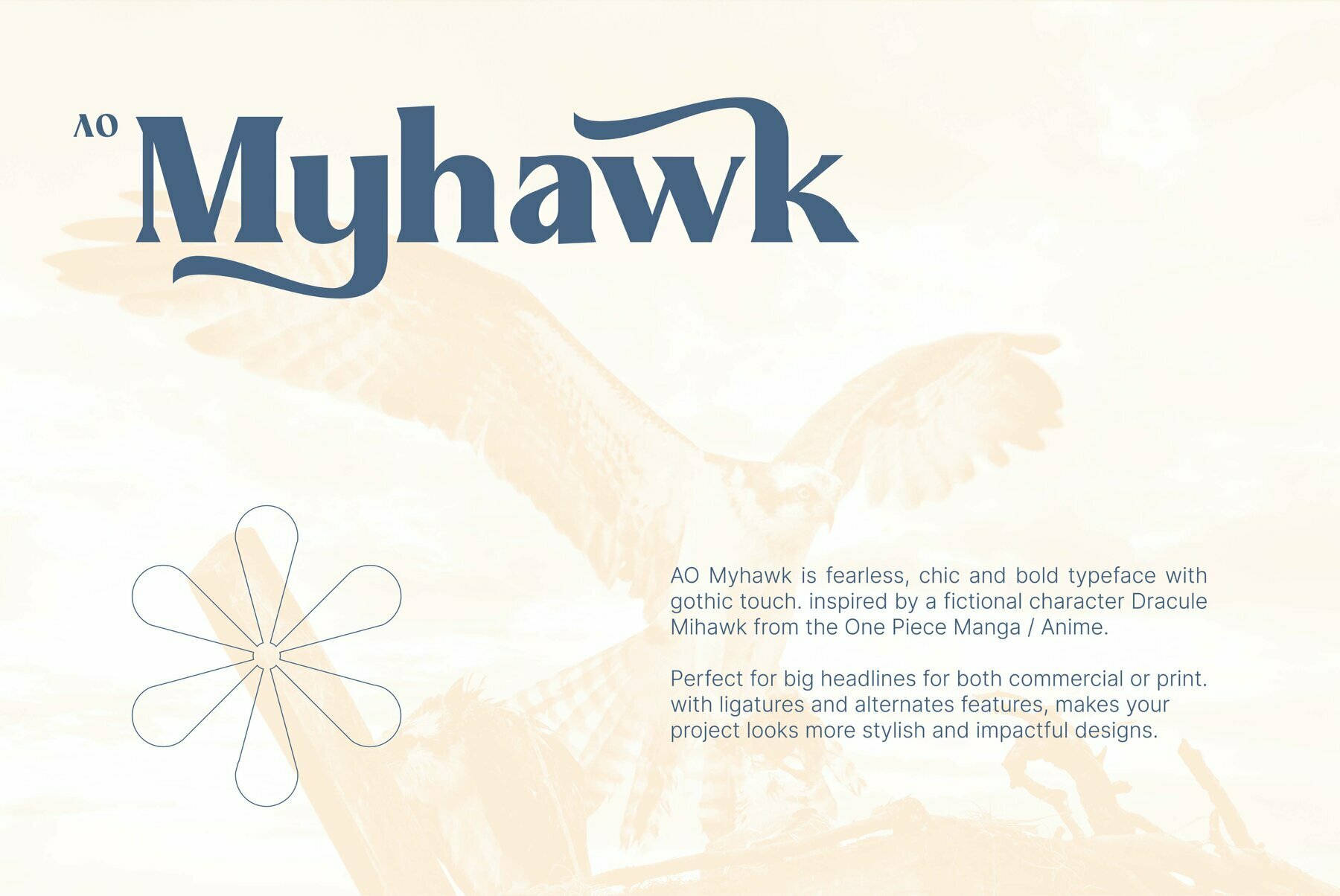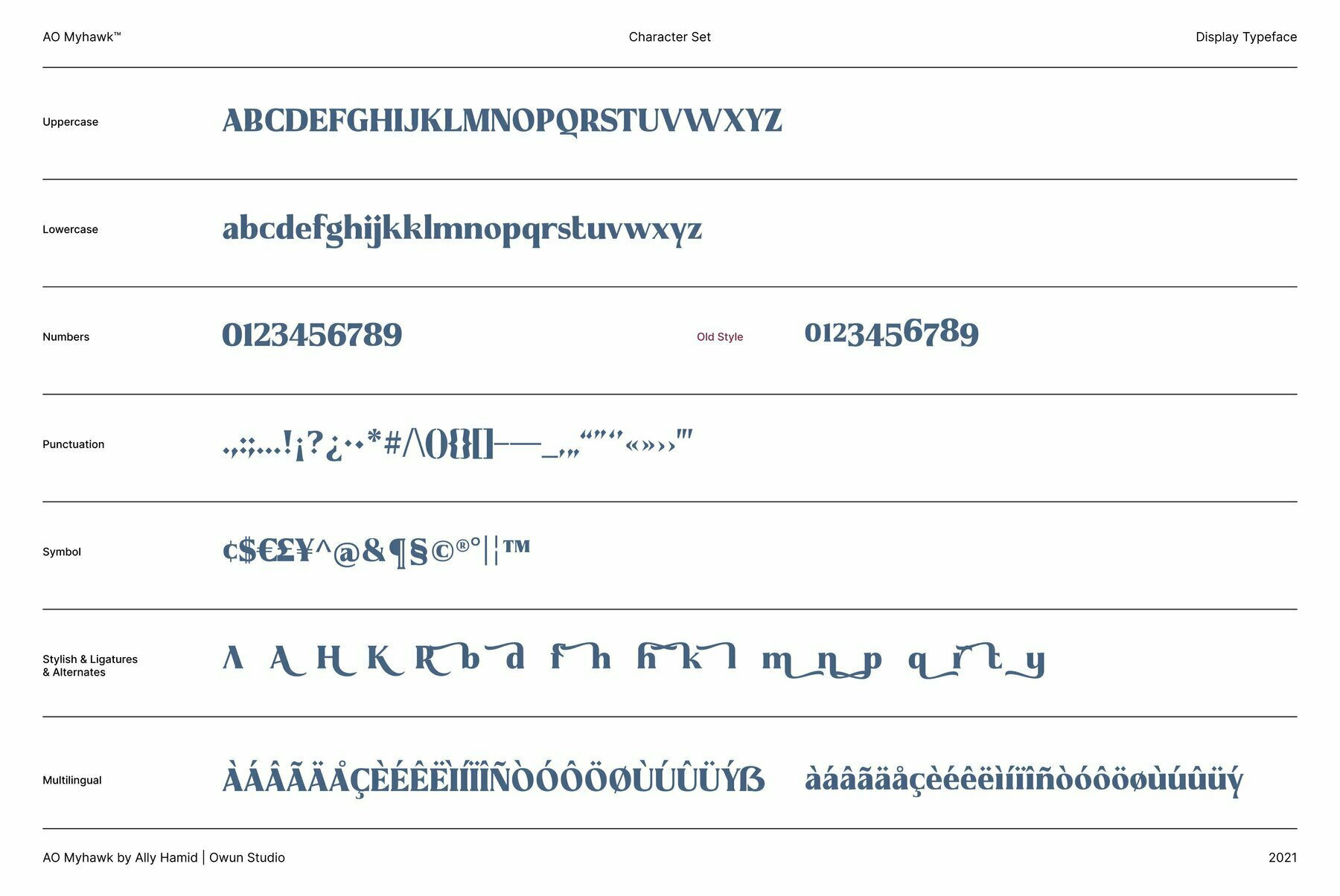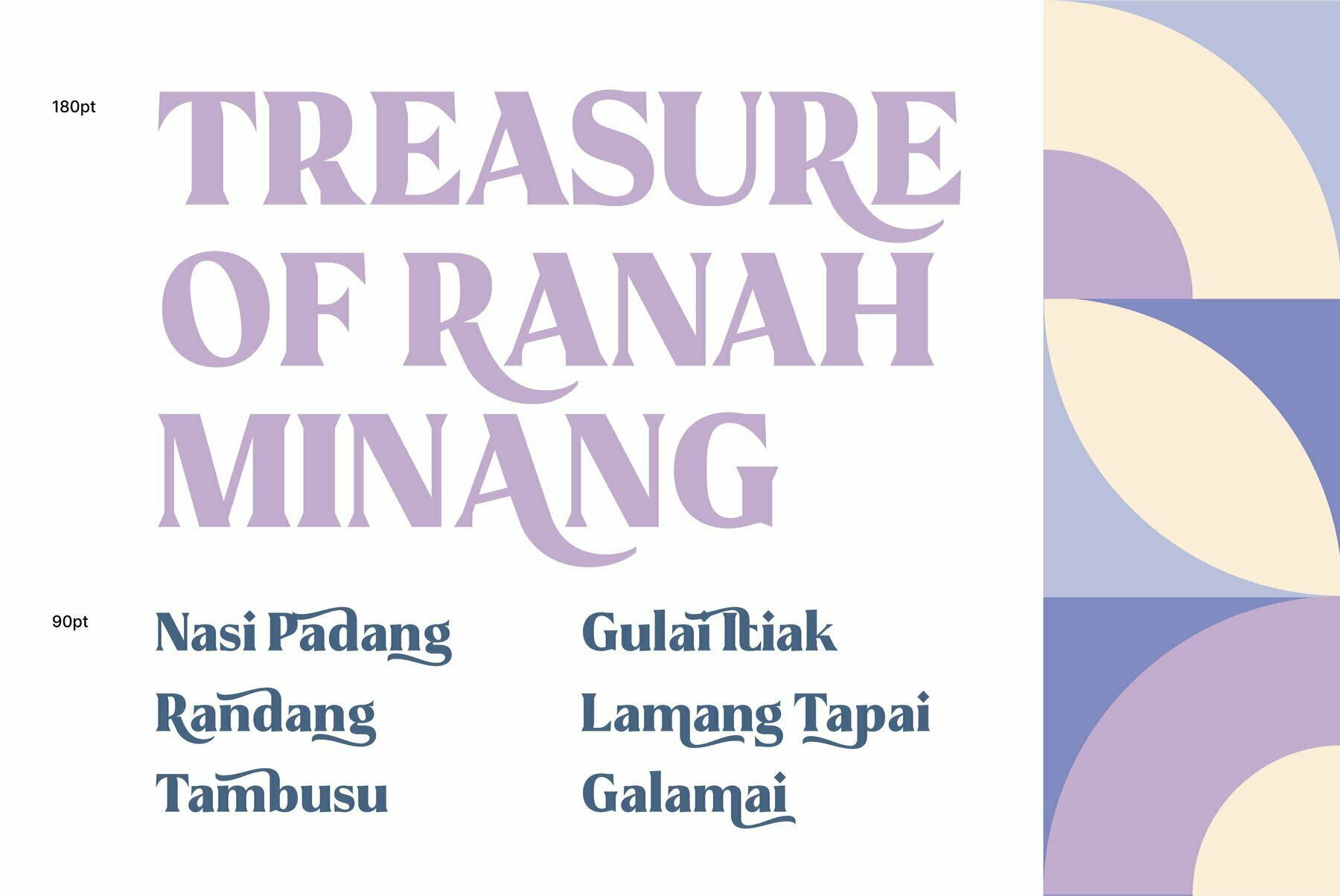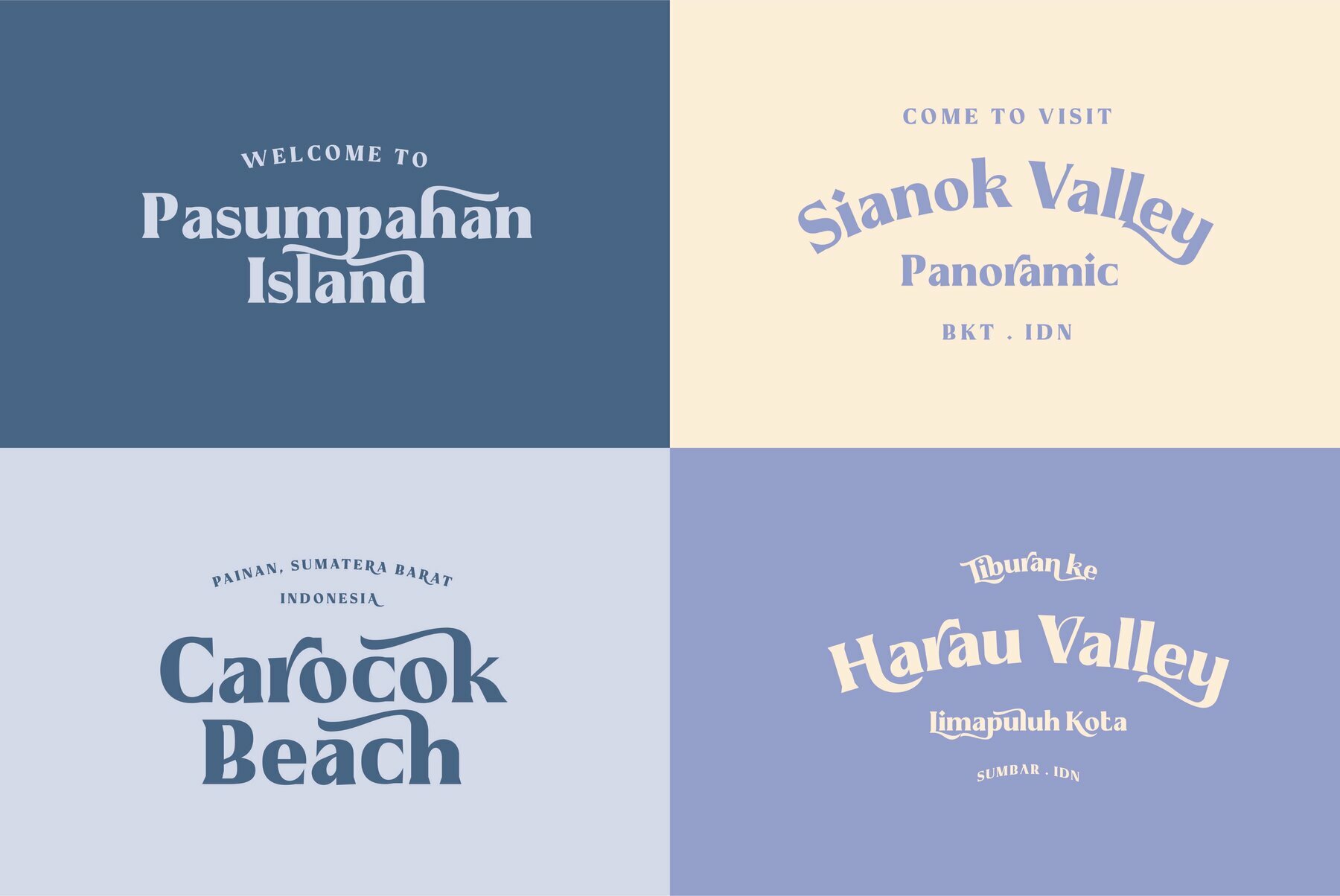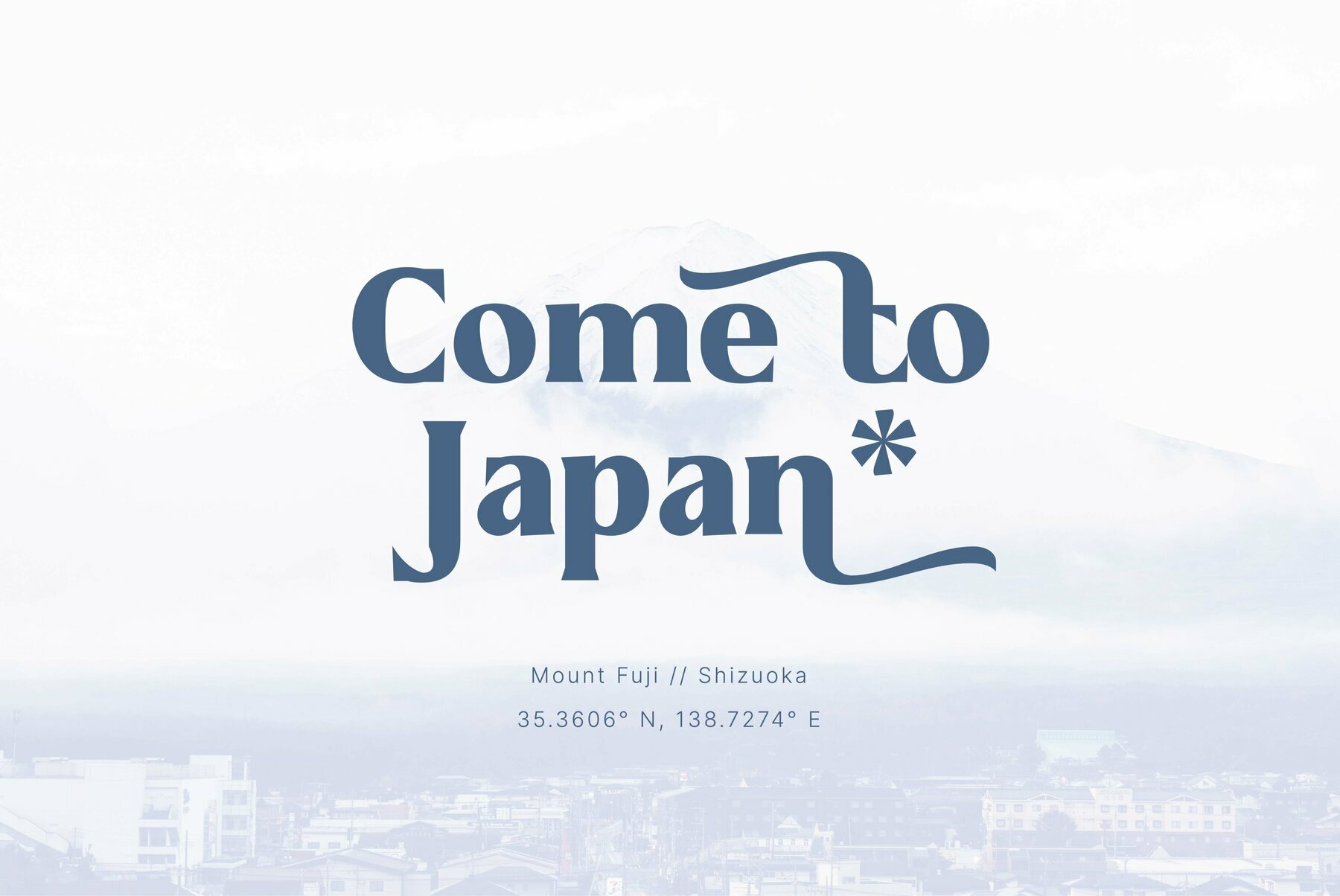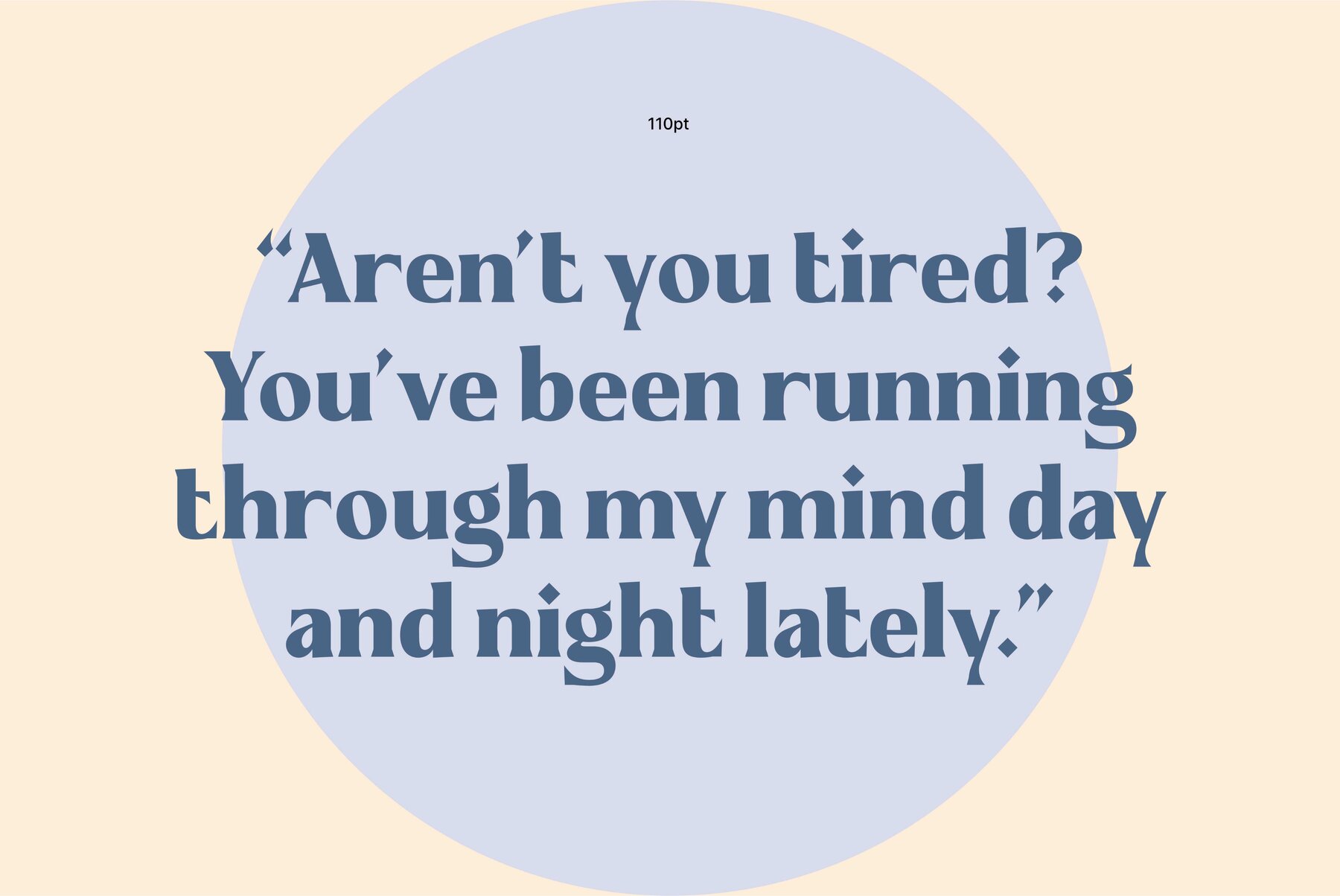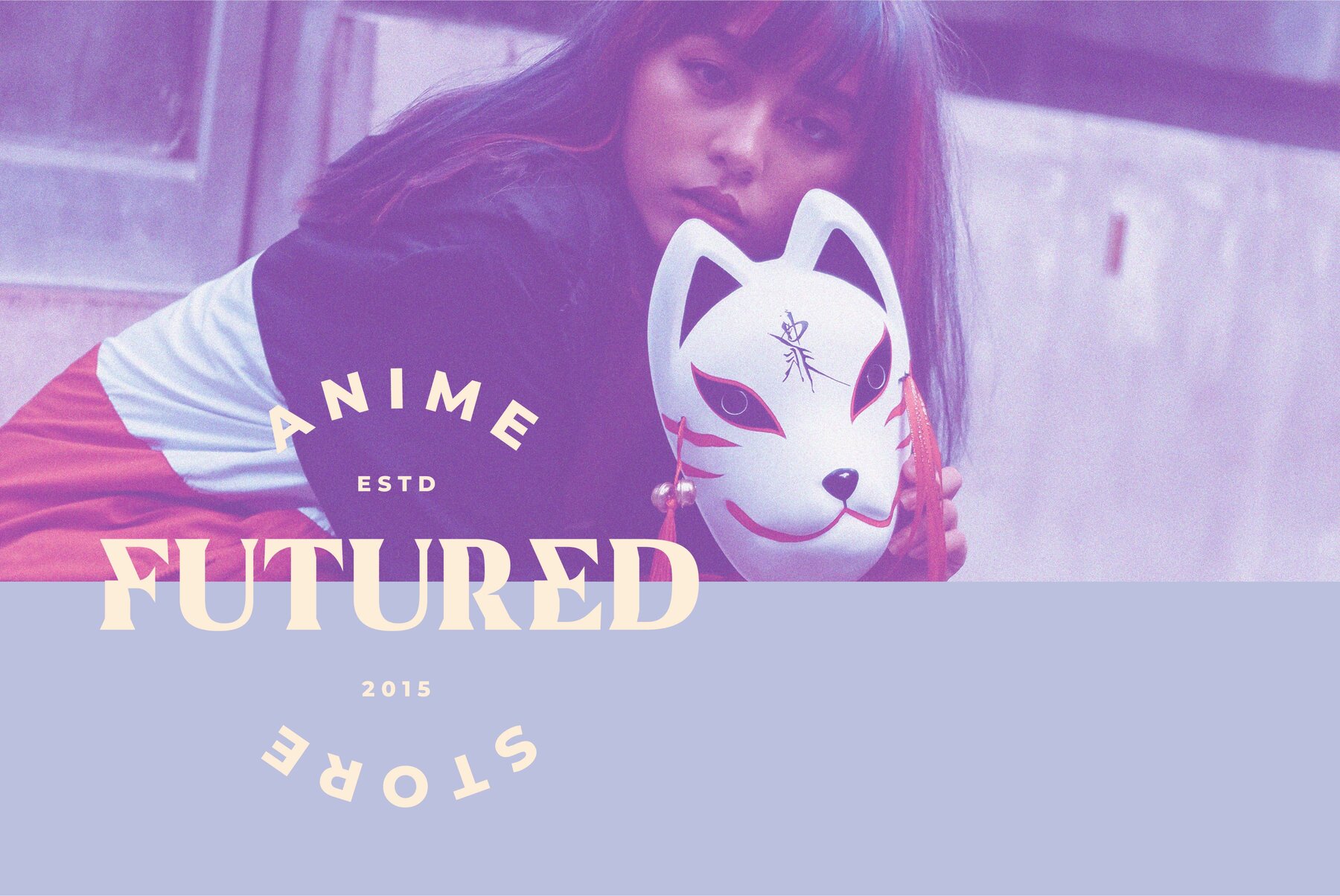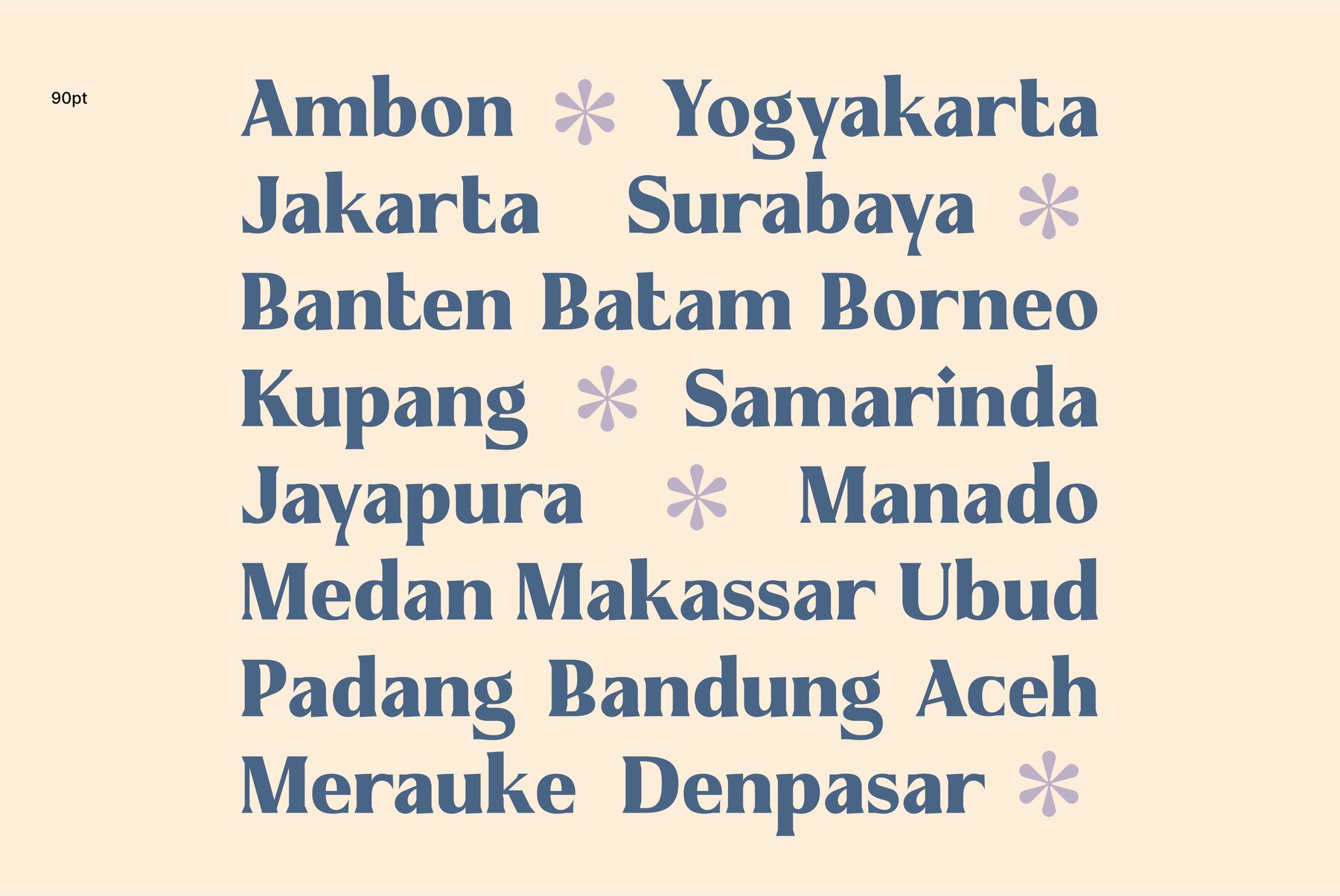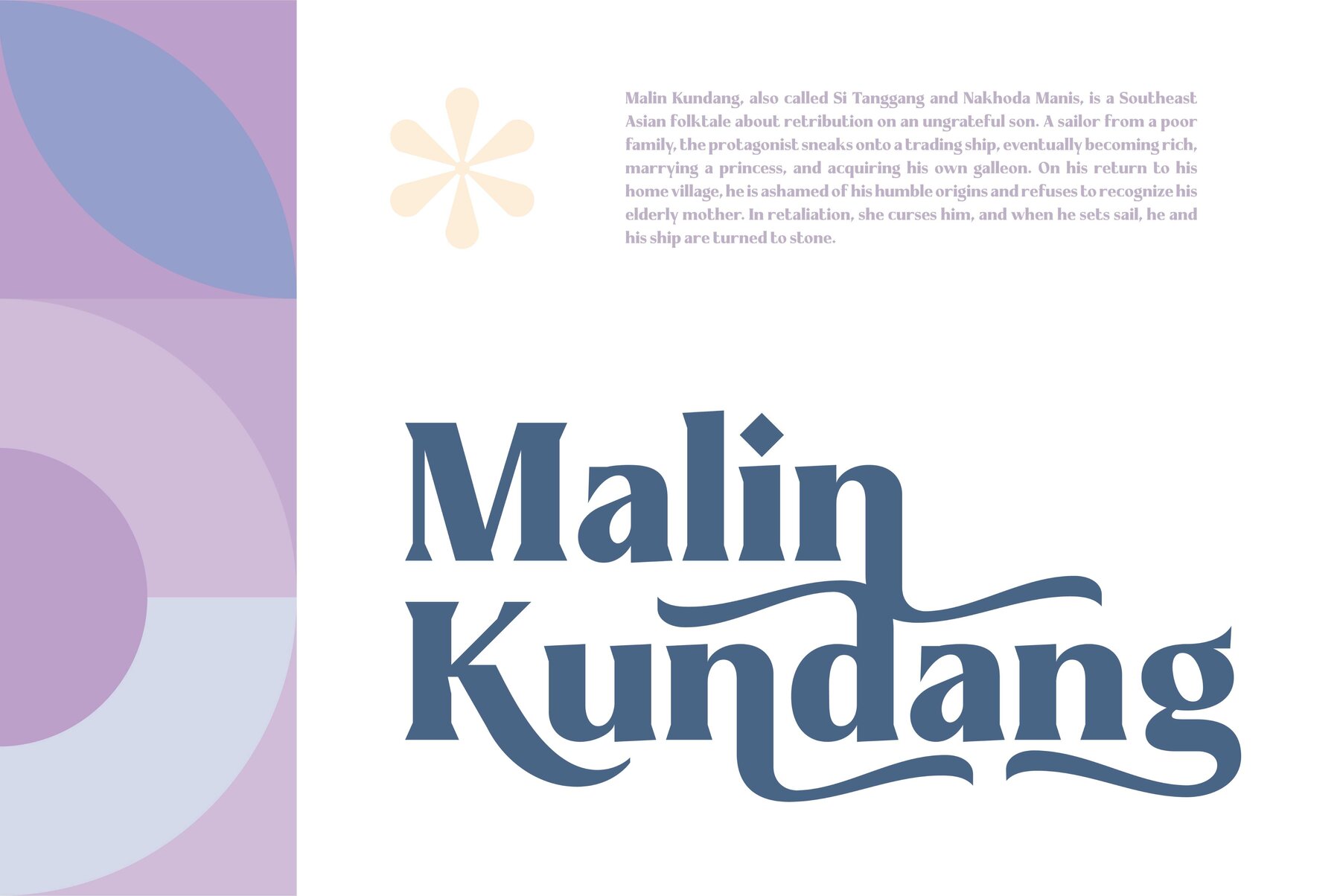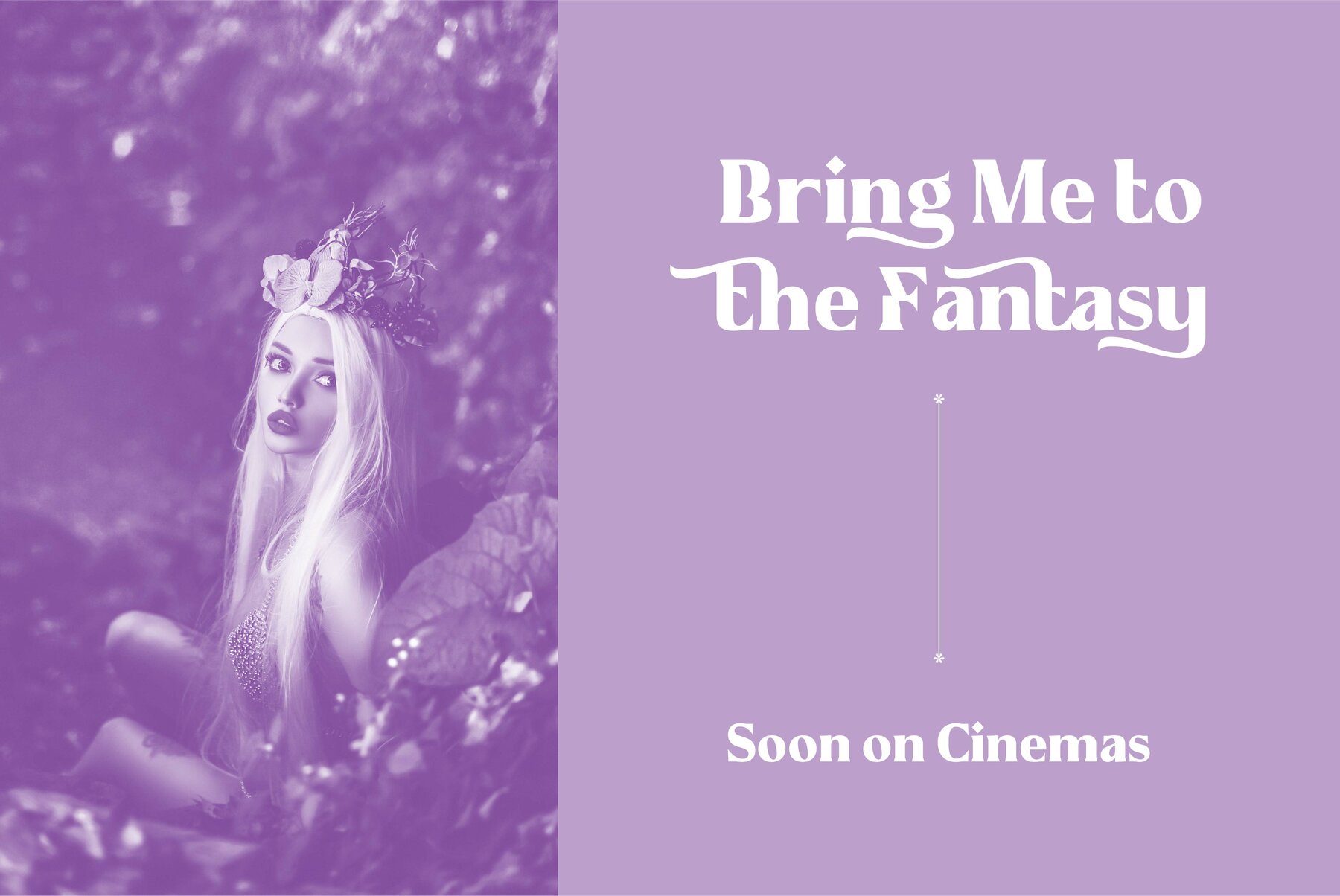
AO Myhawk: A Bold Typeface with Gothic Flair
AO Myhawk by OwunStudio embodies a fearless, chic, and bold character touched by gothic influences. Inspired by Dracule Mihawk from the One Piece Manga/Anime, this typeface is tailor-made for striking headlines, whether for commercial projects or print materials. Its distinctive style, enhanced by ligatures and alternate glyphs, adds sophistication and impact to any creative endeavor.
• Ligature support for fluid connections between letters
• Alternate letterforms for creative flexibility
• Complete uppercase and lowercase set
• Comprehensive numbering and punctuation